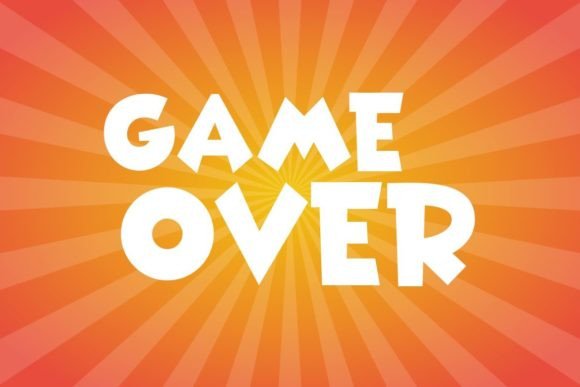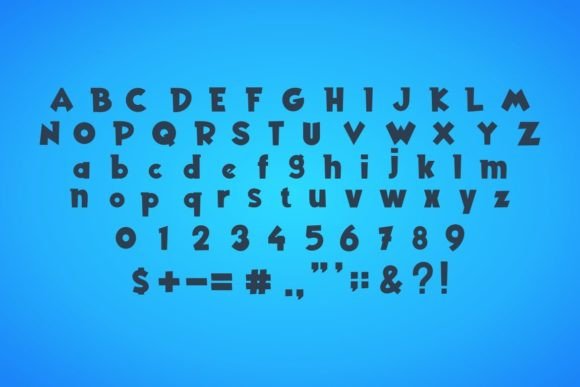
Introducing Boboka Kids Font: The Perfect Addition to Your Design Arsenal
Are you a designer, crafter, or DIY enthusiast looking for a font that can add a touch of fun and friendliness to your projects? Look no further than Boboka Kids Font! This delightful display font is perfect for cartoon-related designs, children’s games, and any creation that requires a lovely touch. In this article, we’ll dive into the features and benefits of Boboka Kids Font, and explore how it can elevate your designs to the next level.
What is Boboka Kids Font?
Boboka Kids Font is a carefully crafted display font designed to bring a smile to your face. Its fun and friendly aesthetic makes it an ideal choice for projects that require a playful touch. The font features rounded edges, soft curves, and a carefree vibe that’s sure to capture the attention of your audience. Whether you’re designing a logo, creating a children’s book, or crafting a DIY project, Boboka Kids Font is the perfect companion.
Key Features of Boboka Kids Font
• Fun and Friendly Design: Boboka Kids Font boasts a unique and playful design that’s sure to delight your audience.
• Display Font: This font is specifically designed as a display font, making it perfect for headlines, titles, and other attention-grabbing elements.
• Cartoon-Related Designs: The font’s playful aesthetic makes it an excellent choice for cartoon-related designs, animations, and children’s games.
• Easy to Read: Despite its playful design, Boboka Kids Font is easy to read, making it suitable for both digital and print applications.
• Versatile: This font can be used for a wide range of projects, from logos and branding to DIY crafts and children’s books.
Benefits of Using Boboka Kids Font
So, why should you choose Boboka Kids Font for your next project? Here are just a few benefits of using this delightful font:
• Adds a Touch of Whimsy: Boboka Kids Font brings a playful touch to your designs, making them more engaging and fun.
• Perfect for Children’s Projects: The font’s friendly aesthetic makes it an excellent choice for children’s books, games, and other projects.
• Easy to Pair with Other Fonts: Boboka Kids Font pairs well with a variety of other fonts, making it easy to create a cohesive look.
• High-Quality Design: The font is carefully crafted to ensure high-quality design and readability.
How to Use Boboka Kids Font
Using Boboka Kids Font is easy! Here are a few tips to get you started:
• Pair with Other Fonts: Experiment with pairing Boboka Kids Font with other fonts to create a unique and cohesive look.
• Use for Headlines and Titles: The font’s display design makes it perfect for headlines and titles.
• Add to Your Design Arsenal: Keep Boboka Kids Font in your design arsenal for future projects that require a playful touch.
In conclusion, Boboka Kids Font is a fun and friendly display font that’s perfect for designers, crafters, and DIY enthusiasts. Its playful aesthetic, versatility, and high-quality design make it an excellent addition to your design arsenal. Whether you’re working on a cartoon-related design, children’s game, or DIY project, Boboka Kids Font is sure to bring a smile to your face and a touch of whimsy to your creations.
Get Ready to Have Fun with Boboka Kids Font!